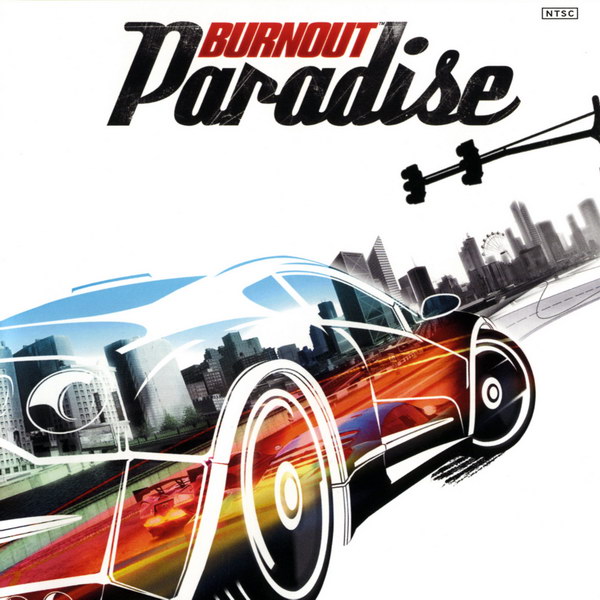
Burnout Paradise Font
Fonts in UseBurnout Paradise is a 2008 racing game developed by Criterion Games and published by Electronic Arts. It features an open-world environment and is available on various gaming consoles.
The "Paradise" font is most likely Deftone Stylus, a structured script typeface designed by Ray Larabie, while the "Burnout" font is likely Compacta, manually italicized.